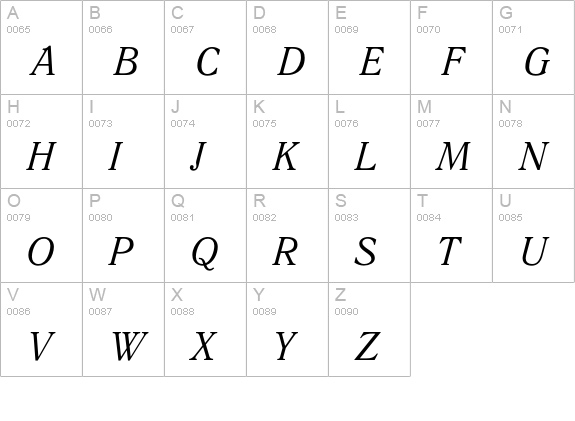
PM QuantAntiqua Italic Cyrillic Font Details
PM QuantAntiqua Italic Cyrillic is a distinctive, italic variant in the PM typeface family \xE2\x80\x94 well suited to design and typography projects.
PM QuantAntiqua Italic Cyrillic is a stunning font that effortlessly combines classical elegance with contemporary style. Its gracefully slanted letters exude an air of sophistication and refinement, making it the perfect choice for projects that require a touch of class. This font is particularly well-suited for creative designs, such as invitations, wedding stationery, and luxury branding. Its unique italicized form adds a captivating twist to any text, effortlessly drawing the reader's attention and creating a sense of intrigue. PM QuantAntiqua Italic Cyrillic is meticulously crafted, with each letter thoughtfully designed to maintain legibility and clarity, even in smaller sizes. Its generous spacing and well-balanced proportions ensure a smooth reading experience, while still maintaining an air of exclusivity. One of the best things about PM QuantAntiqua Italic Cyrillic is that it is freely available to download at FontsMarket.com. This means that designers and creatives can enjoy the beauty and elegance of this font without any financial burden. It is a rare opportunity to access such a high-quality typeface at no cost. Whether you are a professional designer or a hobbyist looking to add a touch of sophistication to your projects, PM QuantAntiqua Italic Cyrillic is a font that will not disappoint. Its timeless appeal and freely accessible nature make it a must-have in any designer's toolkit. Don't miss out on this opportunity to elevate your designs with this exquisite font. Head over to FontsMarket.com and download PM QuantAntiqua Italic Cyrillic today.